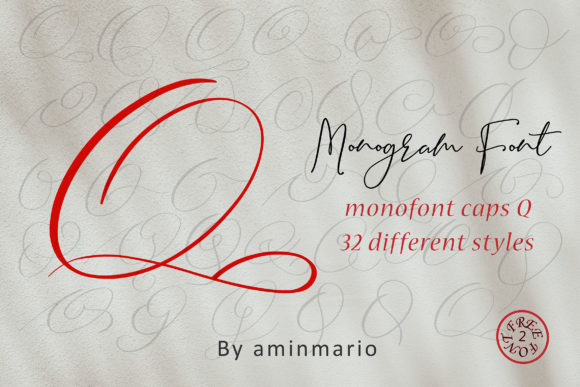
Monogram Q | Monofont Caps Q Font
This MONOGRAM is natural handwriting of capital Q with 36 different styles.
This is not for writing words or sentences, but for monograms. Bonus 2 Font that contains the uppercase and lowercase to support it.